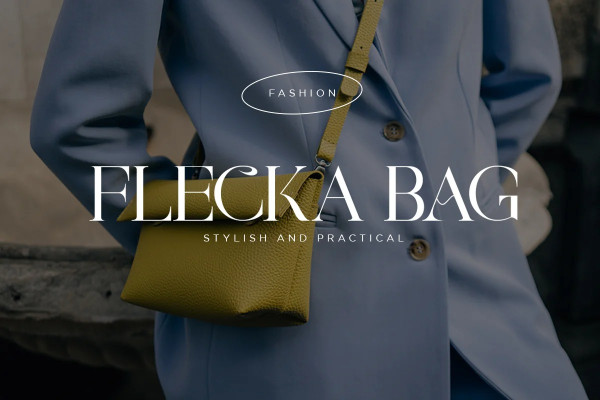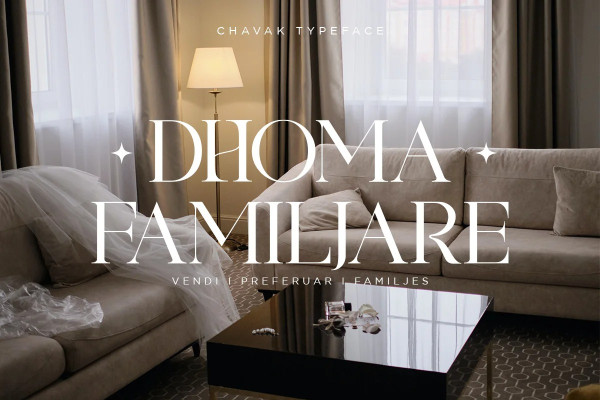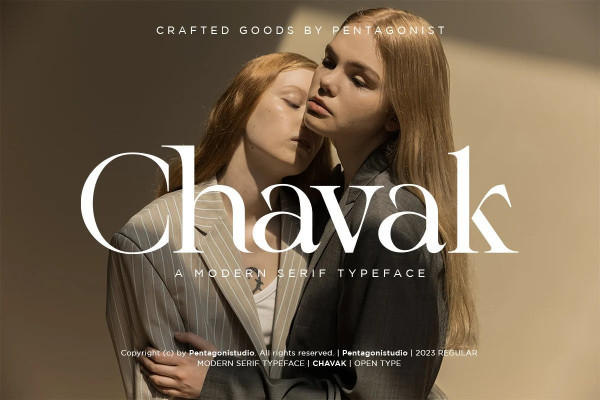
Chavak Font
Chavak Font Is A Modern Serif Font Inspired By Sleek and Exotic Style. This font was created for all forms of business and branding such as clothing, logos, skate boards and others according to your needs.